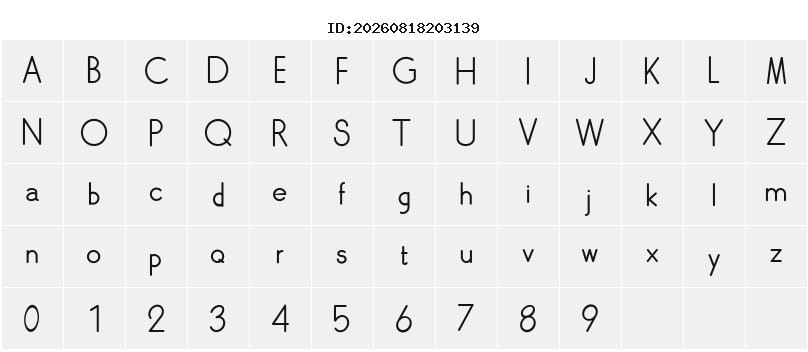
• Font Name: Skarpa Regular
• Full Font Name: SkarpaLT
• Designer: Aga Silva
About Skarpa Regular.ttf
Skarpa Regular.ttf is a modern, elegant sans-serif font designed for ultimate readability and visual harmony. Perfect for branding, headlines, web design, and print materials.